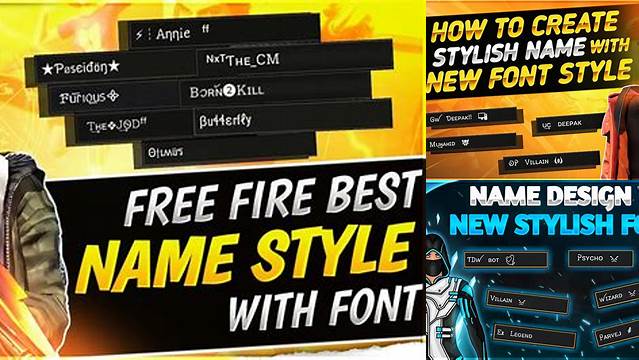
Free Fire Style Name Font: Cool Names Guide
Hey guys! Are you ready to level up your Free Fire game? Besides mastering those headshots and clutch plays, having a killer in-game name is super important. Your name is your identity in the game, and it's the first thing people see. What's more important than having a cool name? Making it stylish, of course! So, let's dive into how you can create a Free Fire style name font that'll make you stand out from the crowd. We'll cover everything from cool font generators to tips on choosing the perfect name. Ready to get creative? Let's go!
What is a Free Fire Style Name Font?
Alright, so what exactly is a Free Fire style name font? Simply put, it’s a way to make your in-game name look unique and visually appealing. Instead of using the standard, plain font, you can use special characters, symbols, and different fonts to customize your name. This not only makes your name look cooler but also helps you stand out. Imagine seeing the same boring name over and over versus seeing a name that's decked out with fancy symbols and a unique font. Which one would grab your attention? Exactly! That's the power of a stylish name.
Think of it as the equivalent of customizing your character's outfit or weapon skins. It’s all about personal expression and adding your own flair to the game. A well-designed name can reflect your personality, your playing style, or even your favorite things. Maybe you're a fan of cool symbols, or maybe you prefer something more edgy. Whatever your style, a Free Fire style name font lets you express yourself. Plus, it’s a great conversation starter! People will notice your name, and you might even make some new friends in the game. It's all about making a lasting impression and adding some fun to the game. There are tons of ways to be creative with your in-game name, so get out there and experiment. You can use different font styles, special characters, and even colors. The options are endless, so let your imagination run wild!
Benefits of Using a Stylish Name
Okay, so why bother with a stylish name? Well, there are several awesome benefits to having a Free Fire style name font:
- Stand Out: In a game with millions of players, standing out is key. A unique name makes you memorable.
- Showcase Your Style: Express your personality and preferences through your name.
- Boost Your Image: A cool name can make you seem more experienced and skilled.
- Attract Attention: People will notice and remember your name, potentially leading to new friendships.
- Fun and Engaging: Customizing your name is a fun and creative way to personalize your gaming experience.
How to Create a Free Fire Style Name
Alright, let's get to the fun part: creating your awesome Free Fire style name! Luckily, it's easier than you might think. Here are the steps:
1. Choose a Name
First things first, you need to pick a name. This can be anything you like! It could be your real name, a nickname, a character, or a cool word or phrase. Make sure it’s something you enjoy and that represents you. Consider your gaming style and personality. Are you aggressive, strategic, or maybe a bit of a prankster? Your name can reflect this.
- Brainstorm Ideas: Write down some words, phrases, or concepts that you like. Combine them to create something unique.
- Check Availability: Make sure the name isn’t already taken in Free Fire.
2. Use a Font Generator
This is where the magic happens! Font generators are tools that convert your plain text into stylish fonts and add cool symbols. There are tons of free online font generators available, and they're super easy to use. Just type your name into the generator, and it will give you a bunch of different font options to choose from. You can also add symbols and special characters to make your name even more unique. Here are some popular Free Fire style name font generators:
- Nickfinder.com: A popular and user-friendly font generator with a wide variety of fonts and symbols.
- LingoJam: Another great option that offers a variety of fonts and customization options.
- Stylish Text: An app that provides various text styles and symbols for your in-game name.
3. Customize Your Name
Once you've chosen a font, it’s time to customize your name even further. This is where you can really get creative! You can add symbols, special characters, and even combine different fonts. Experiment with different options until you find a design you love. The more unique your name is, the better!
- Add Symbols: Use symbols like stars, hearts, skulls, or anything else that matches your style.
- Mix Fonts: Combine different fonts to create a unique look.
- Experiment: Try out different combinations until you find the perfect name.
4. Copy and Paste into Free Fire
Once you’re happy with your stylish name, copy it from the font generator. Then, open Free Fire and go to the name change section. Paste your new name into the box and confirm the change. Keep in mind that you might need to use name change cards, or diamonds to change your name. So make sure you're prepared before you finalize it!
Tips for Choosing a Great Free Fire Name
Choosing the right name is super important. A great Free Fire style name is memorable, unique, and reflects your personality. Here are some tips to help you choose the perfect name:
Conclusion: Unleash Your Style!
Alright, guys, you've got all the tools and tips you need to create an awesome Free Fire style name font! Remember, your name is your brand. So, make it unique, make it stylish, and have fun with it. With a little creativity and these tips, you'll have a name that'll turn heads and make you stand out in the world of Free Fire. Go out there, experiment with different fonts and symbols, and find the perfect name that represents you. Happy gaming and good luck out there in the battlegrounds! Don't forget to share your cool new names with your friends. See you in the game!